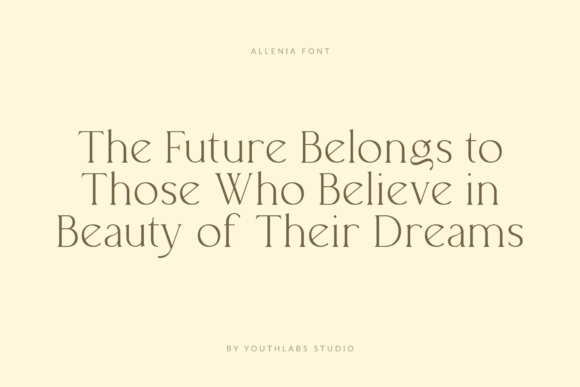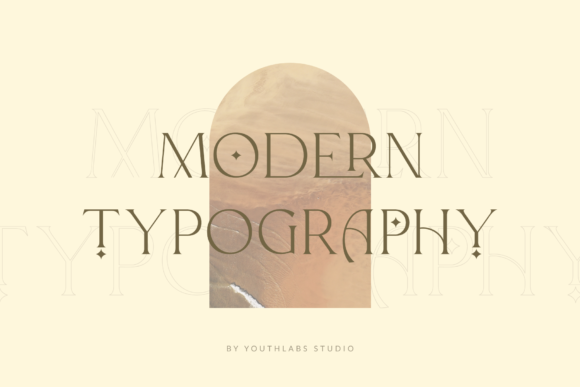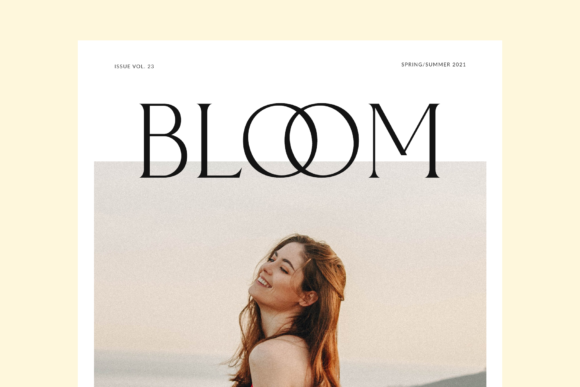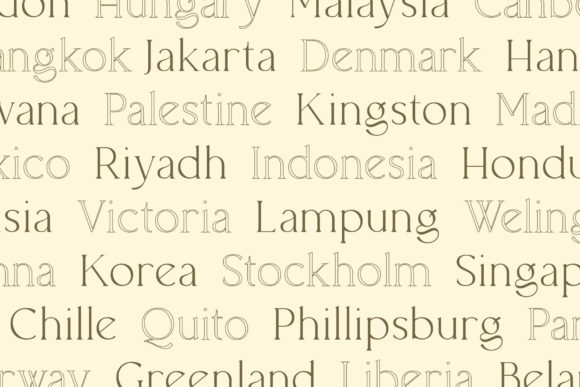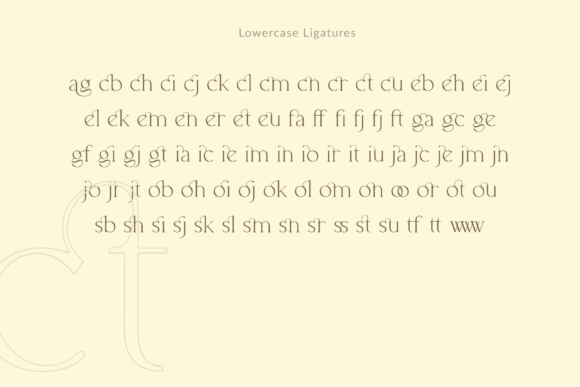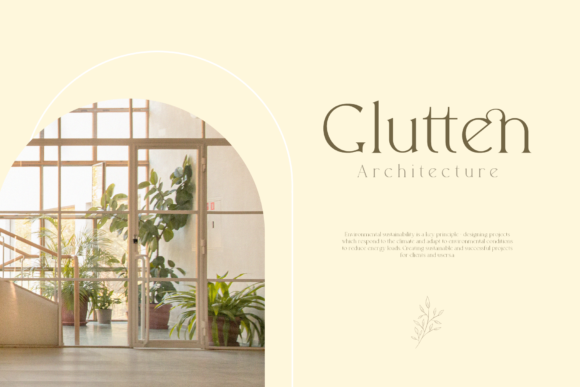
Introducing Allenia Font: Elevate Your Designs with Elegance and Style
Are you on the hunt for a font that exudes sophistication and refinement? Look no further than Allenia Font, an elegant and stylish serif font designed to elevate your designs to new heights. With its beautiful alternates and ligatures, Allenia is the perfect match for any project, whether you’re a seasoned designer or a crafty DIY enthusiast.
The Allure of Allenia Font
Allenia Font is a masterclass in typographic design, boasting a unique blend of classic and modern elements. Its serif structure provides a sense of tradition and stability, while its sleek lines and curves inject a touch of contemporary flair. This harmonious balance makes Allenia an incredibly versatile font, suitable for a wide range of applications, from luxury branding and advertising to packaging and editorial design.
Stylish Alternates and Ligatures
One of the standout features of Allenia Font is its extensive range of stylish alternates and ligatures. These typographic flourishes allow you to add an extra layer of creativity and personality to your designs, setting them apart from the ordinary. With Allenia, you can effortlessly create beautiful, high-end visuals that showcase your attention to detail and commitment to quality.
Whether you’re a professional designer or a crafty DIY enthusiast, Allenia Font is an excellent addition to your toolkit. Its elegant and stylish aesthetic makes it an ideal choice for a variety of projects, including:
• Luxury branding and packaging
• Editorial design and publishing
• Advertising and marketing materials
• Wedding and event stationery
• Crafting and DIY projects
Why Choose Allenia Font?
So, what sets Allenia Font apart from other fonts on the market? Here are just a few reasons why designers and crafters love Allenia:
• Elegant and stylish design: Allenia’s sophisticated aesthetic makes it perfect for high-end designs and projects that require a touch of luxury.
• Versatile and adaptable: With its wide range of alternates and ligatures, Allenia can be used in a variety of contexts, from body text to headlines and titles.
• Easy to use: Allenia Font is designed to be user-friendly, making it simple to incorporate into your designs and projects.
• High-quality craftsmanship: Allenia Font is crafted with attention to detail and a commitment to quality, ensuring that your designs look professional and polished.
In conclusion, Allenia Font is a stunning serif font that offers a unique blend of elegance, style, and versatility. With its beautiful alternates and ligatures, Allenia is the perfect match for designers and crafters looking to elevate their designs and projects. Whether you’re working on a luxury brand identity, editorial design, or crafting project, Allenia Font is sure to impress. So why not give it a try and see the amazing results for yourself?